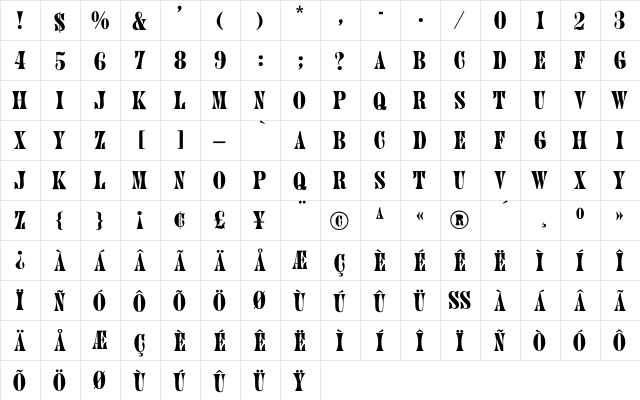
Treemain Regular
Design Context for Treemain Typeface
Treemain is a composed and adaptable typeface that performs quietly and consistently across a wide range of design contexts.